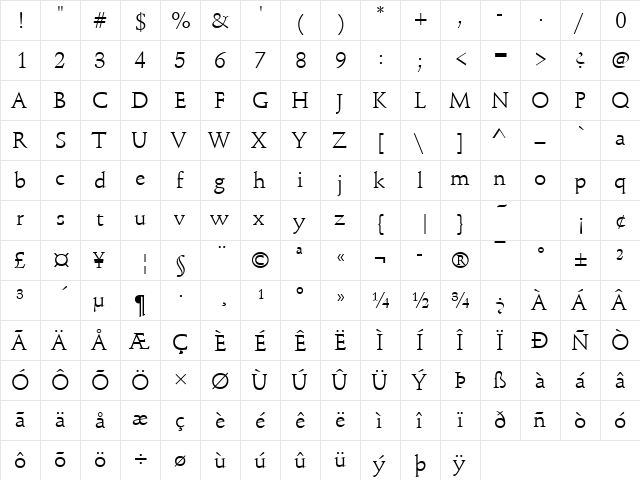
SchneidlerMedT Regular
Design Context for SchneidlerMedT Typeface
SchneidlerMedT offers clean, dependable letterforms without strong stylistic allegiance, making it a practical choice for designers who need flexibility.
Pro Tip: Pair SchneidlerMedT with a font of contrasting weight or personality to build a more expressive typographic hierarchy.